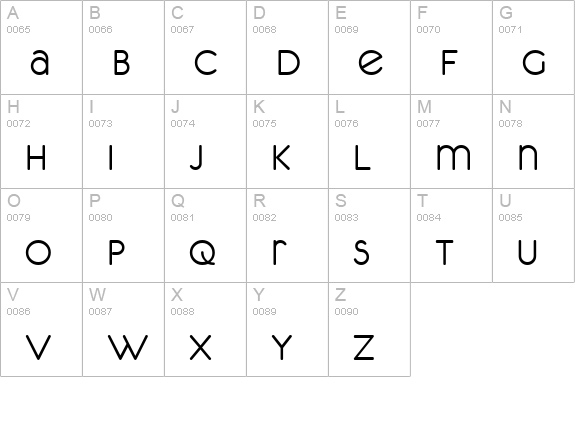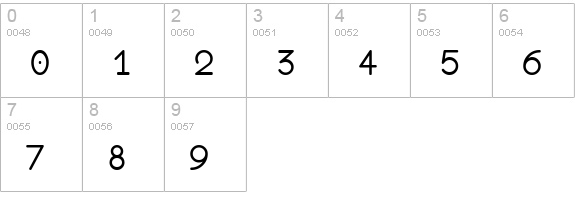
unifur Font Details
Unifur font is a stylish and modern typeface that is perfect for adding a touch of elegance to any design project. Its clean lines and smooth curves give it a sleek and sophisticated look, making it suitable for a wide range of applications, from logos and branding to headlines and body text. What sets Unifur font apart is not just its aesthetic appeal, but also the fact that it is free to download. Yes, you read that right! Unifur font is freely available to download at FontsMarket.com, making it accessible to designers and creatives of all levels. Whether you're a professional graphic designer or a hobbyist looking to add some flair to your personal projects, Unifur font is a versatile and reliable option. With its extensive character set, including uppercase and lowercase letters, numbers, punctuation marks, and special characters, you'll have all the tools you need to bring your ideas to life. The versatility of Unifur font is further enhanced by its readability. Its clear and legible design ensures that your message will be easily conveyed, whether it's on a website, a flyer, or a poster. Additionally, the font's attention to detail guarantees that it will look great at any size, maintaining its sharpness and clarity even in small text. Unifur font is not just visually appealing and easy to read, it also offers a seamless user experience. Its file size is optimized for quick and efficient loading, ensuring that your website or application won't be slowed down by bulky fonts. This makes Unifur font an excellent choice for digital platforms and online projects. In conclusion, Unifur font is an exceptional typeface that combines style, versatility, and readability. And the best part? It's free! You can download Unifur font today at FontsMarket.com and start incorporating its elegance and charm into your designs. So why wait? Unlock your creativity and give your projects the professional touch they deserve with Unifur font.